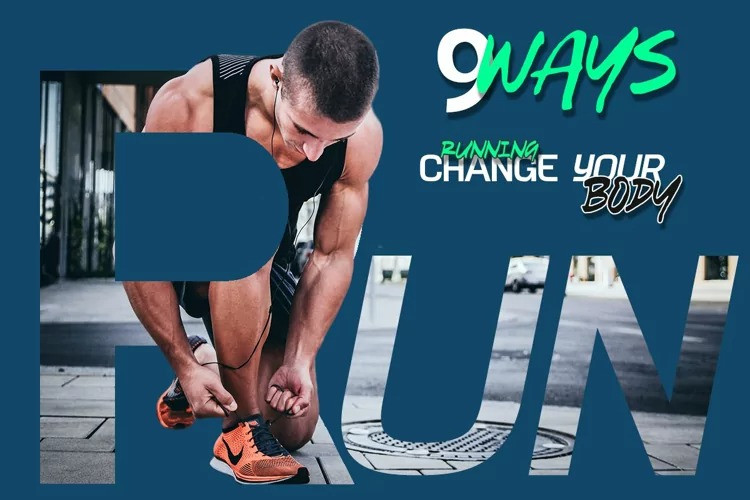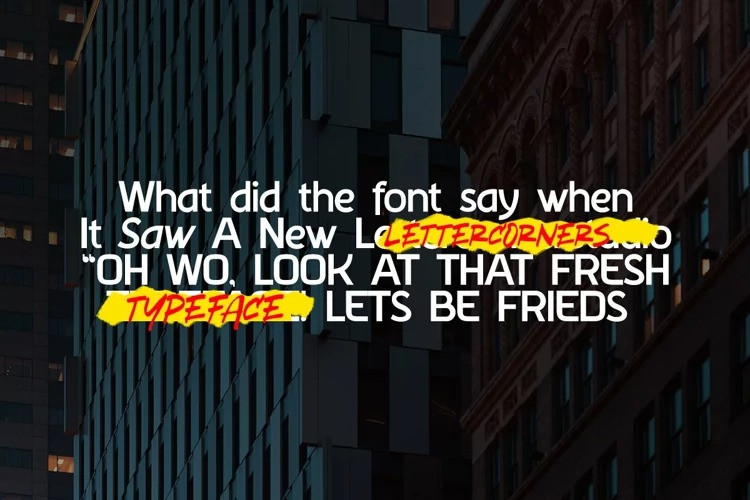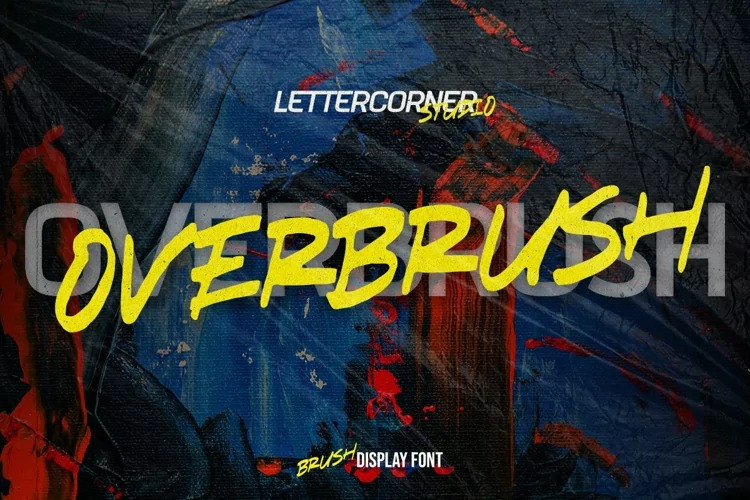
Overbrushing Font
Overbrush Font is a font containing two font types to use together or separately: sans serif and script fonts. Sans serif font has firm, modern, simple looking lines without curvy edges. Meanwhile, the script font has curvy lines in water paint or ink textures. The textures are extra lines added to each letter and to the background letter patterns. A textured script font looks more artistic and more detailed than the other ordinary script fonts to show elegant, romantic impressions in your designs. Additionally, script font can be applied for adding extra visual contrasts to designs with sans serif font.